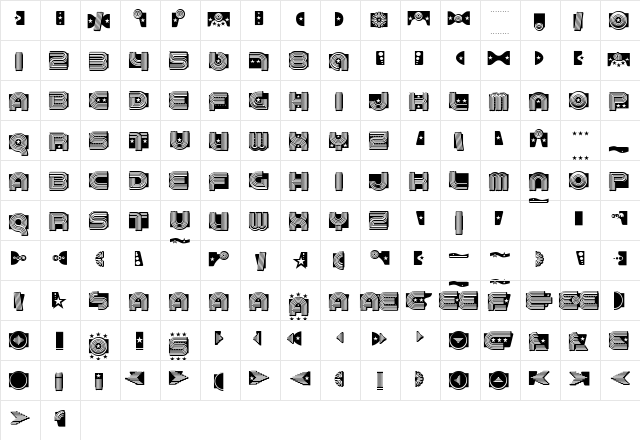
MaxiGroove Regular Font Preview
MaxiGroove Regular
Design Context for MaxiGroove Typeface
MaxiGroove is a composed and adaptable typeface that performs quietly and consistently across a wide range of design contexts.